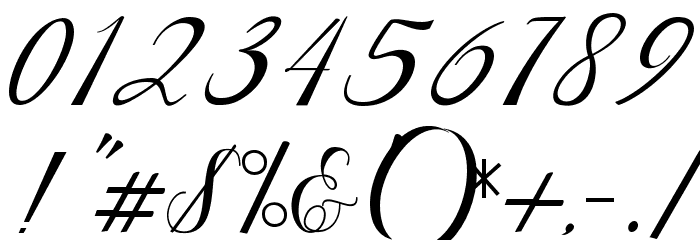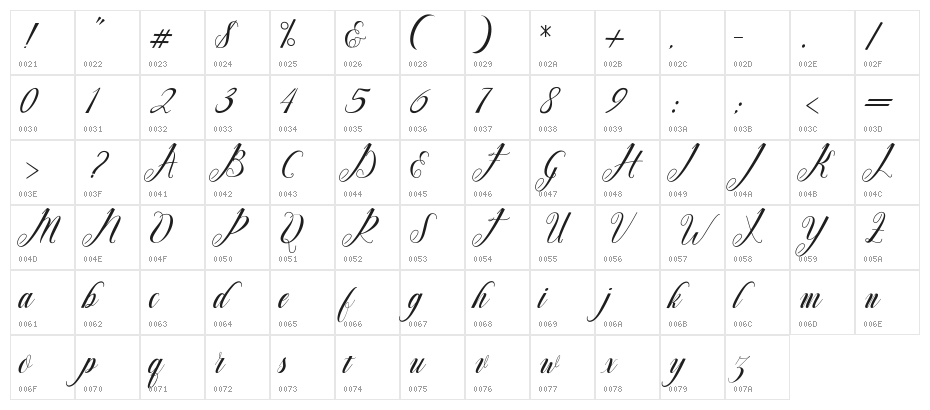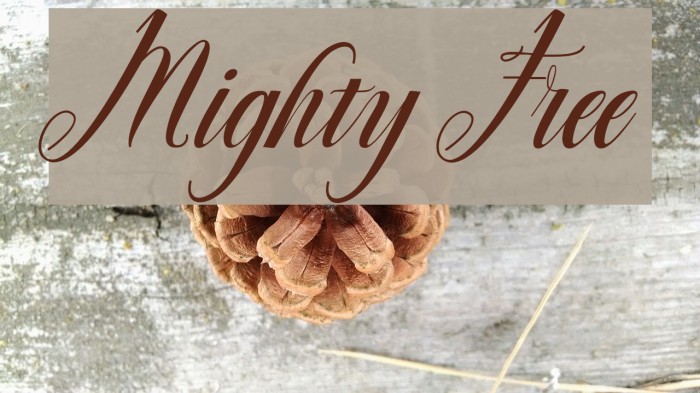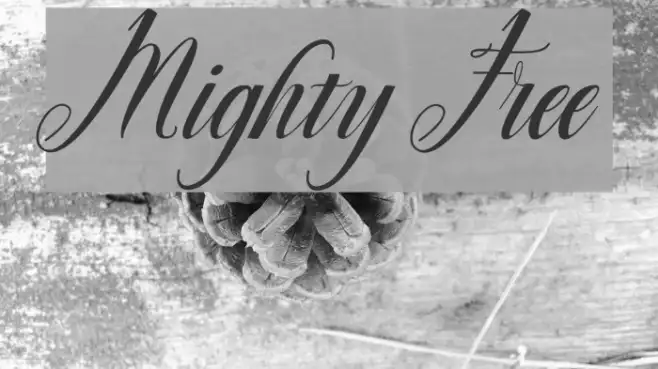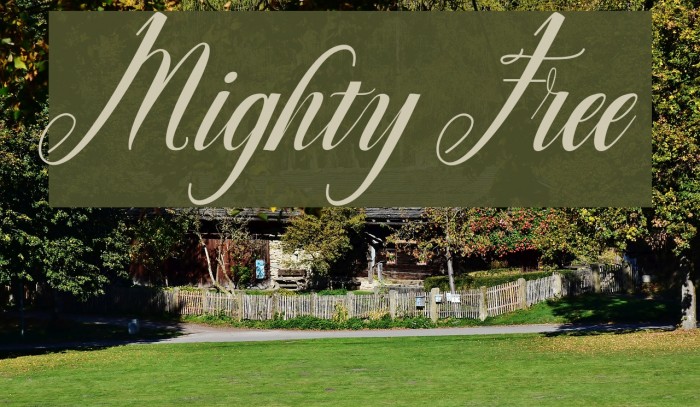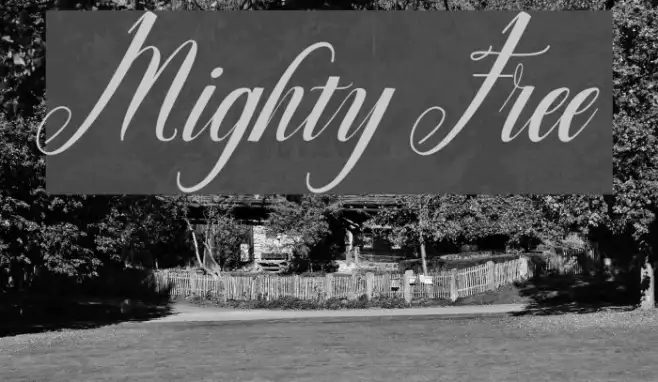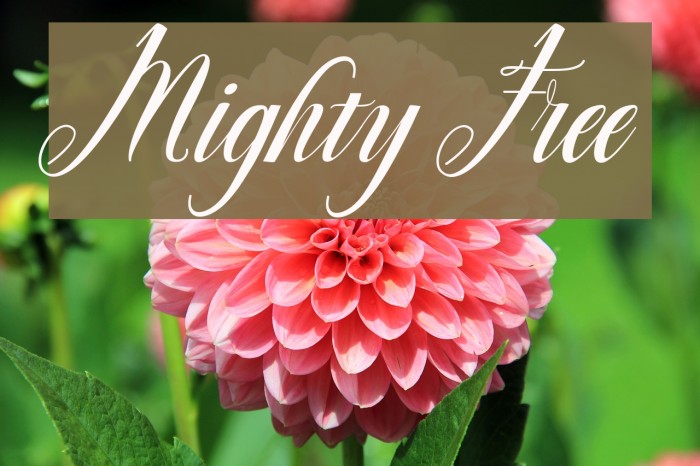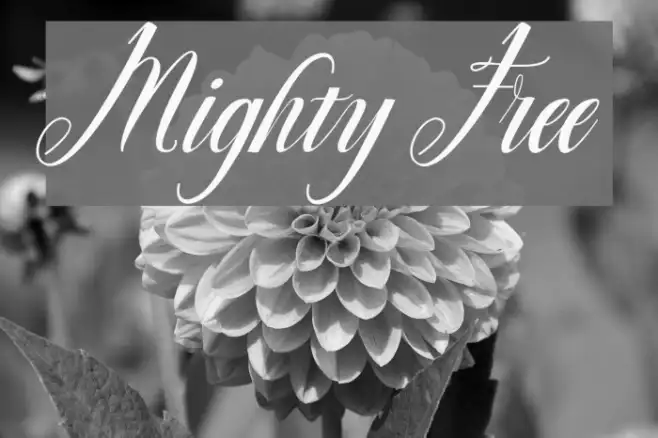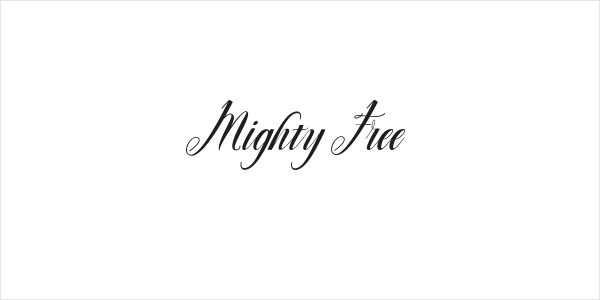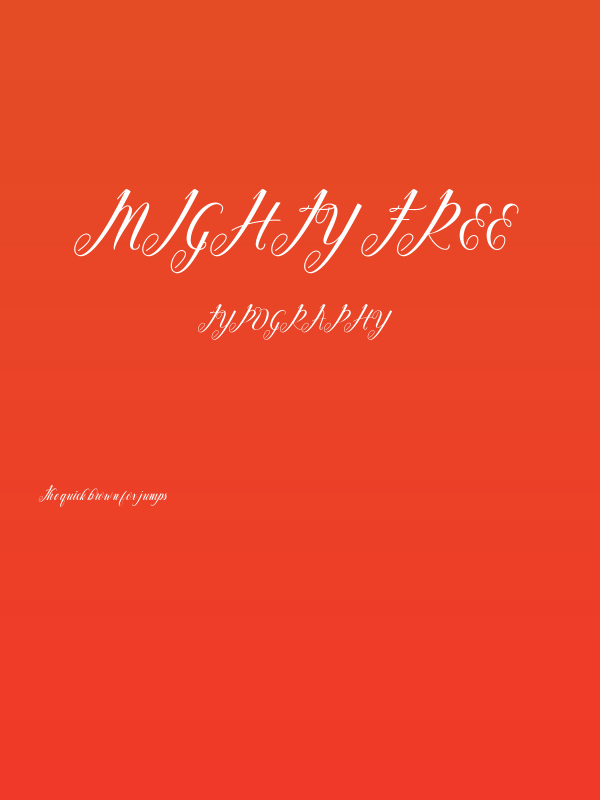
Mighty Free Font
Mighty Free Description
This font exudes elegance and sophistication with its flowing, cursive style. The letters are intricately designed with graceful loops and swirls, giving it a handwritten appearance. The uppercase letters are particularly ornate, featuring elongated strokes and decorative flourishes that add a touch of luxury. The lowercase letters maintain a consistent flow, complementing the uppercase with their smooth curves. Numbers and special characters are crafted with the same attention to detail, ensuring a cohesive look across all elements. The overall design is both artistic and readable, making it suitable for a variety of creative applications.